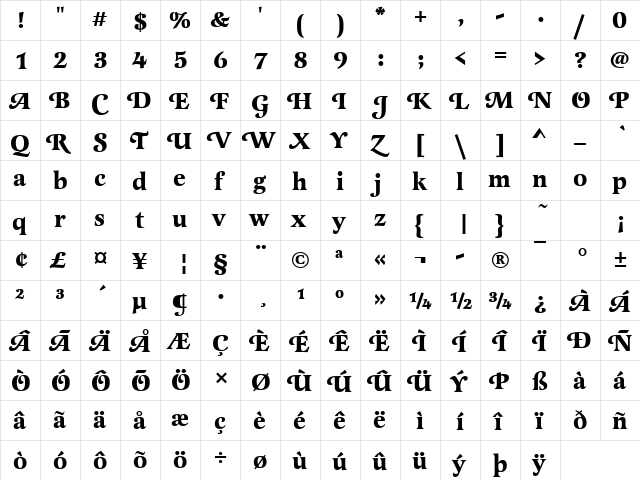
LatienneSwaT Bold Font Preview
LatienneSwaT Bold
LatienneSwaT Bold Font Details
Design Context for LatienneSwaT Typeface
LatienneSwaT offers clean, dependable letterforms without strong stylistic allegiance, making it a practical choice for designers who need flexibility. The heavy weight commands attention and anchors typographic hierarchies.